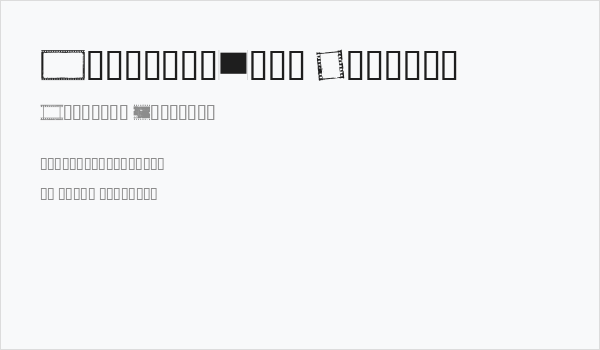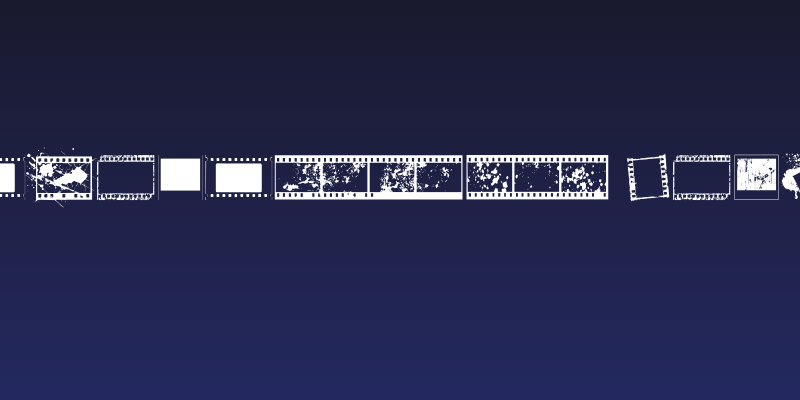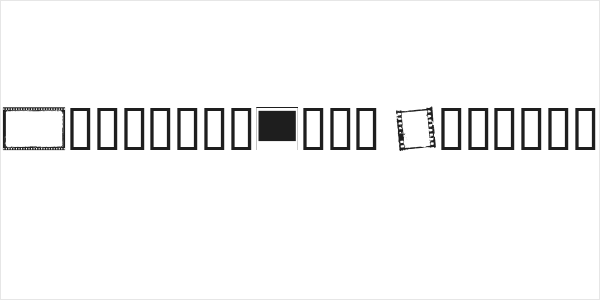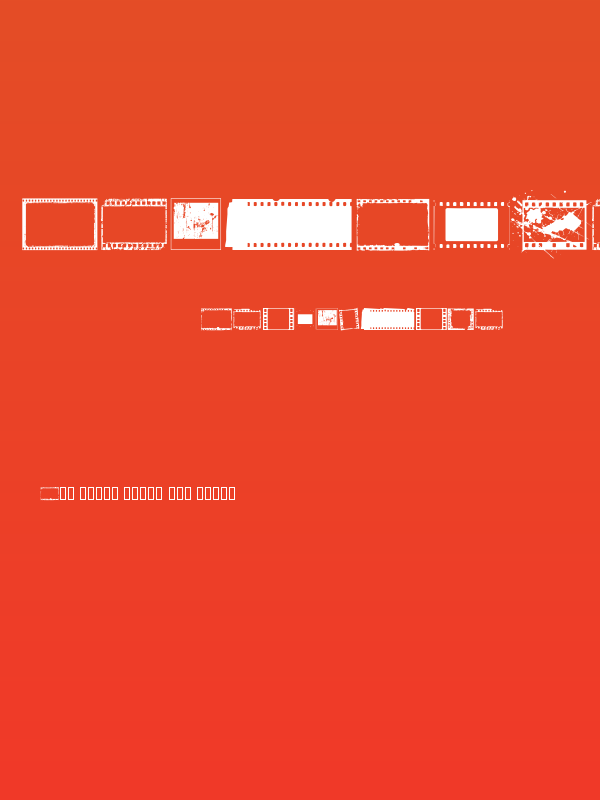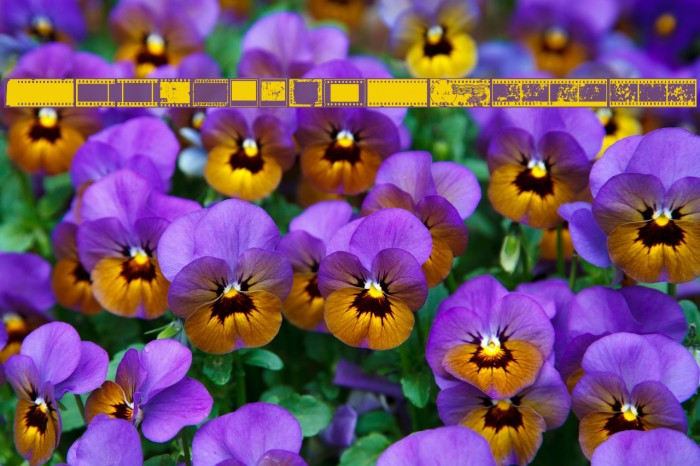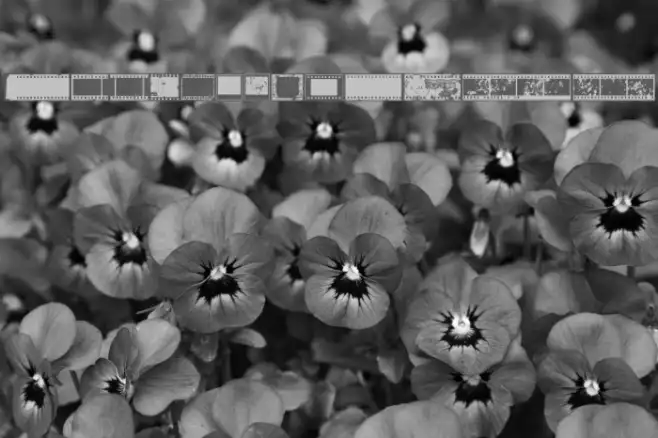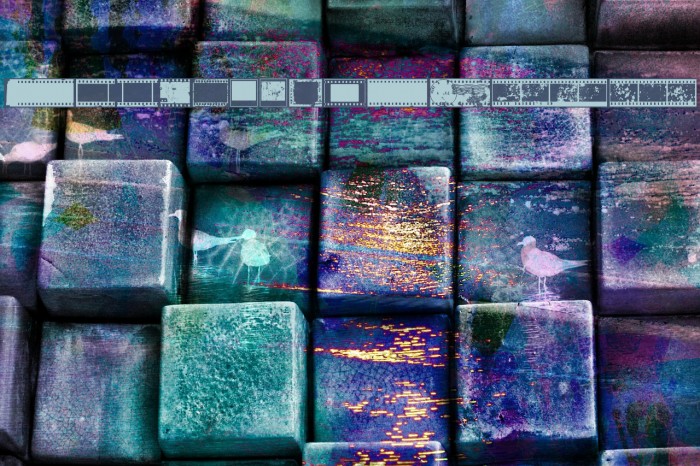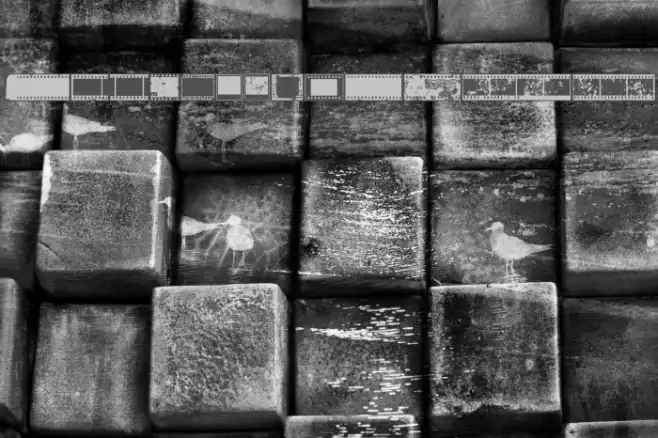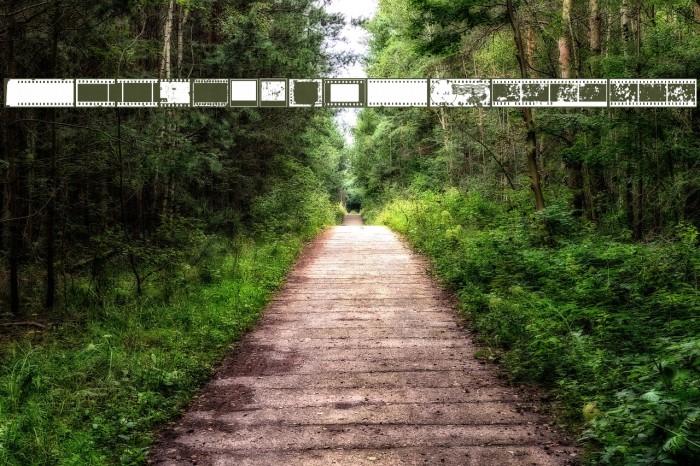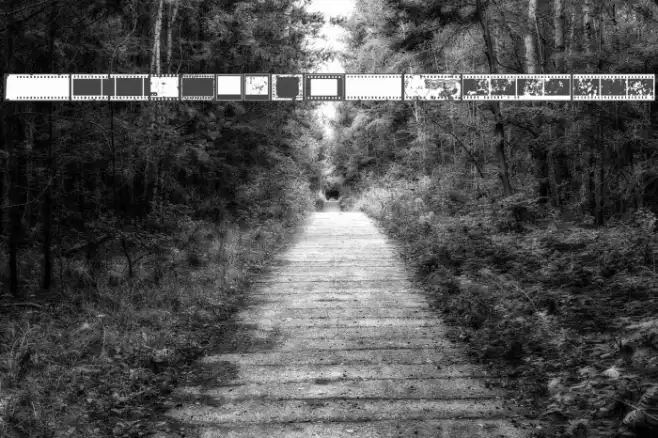
NegativeFilm Regular Font
NegativeFilm Regular Description
This font is a unique decorative style that mimics the appearance of film negatives. Each character is designed to resemble a film strip, complete with sprocket holes and varying levels of detail that suggest photographic elements. The design is highly creative, making it ideal for projects that require a vintage or cinematic theme. The characters are bold and rectangular, with a consistent width that gives a uniform appearance. The font captures the essence of old-school photography and film, making it a perfect choice for projects that aim to evoke nostalgia or a retro aesthetic.
| Use Case | Logos, Posters, Creative Branding |
| Proposed Projects | Ideal for movie posters, retro-themed designs, photography exhibitions, and creative branding projects. |